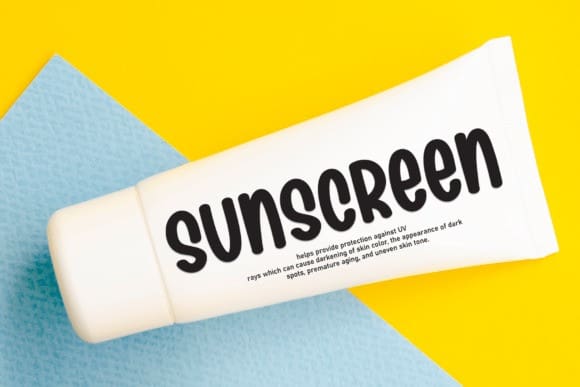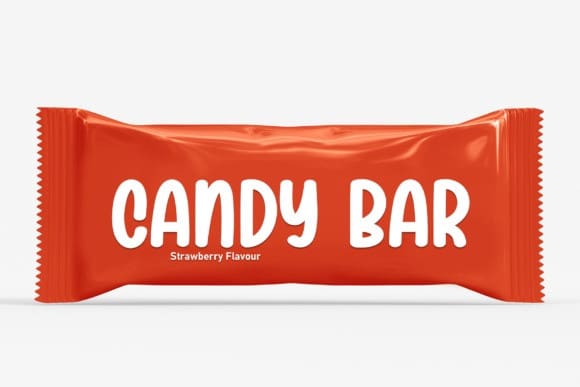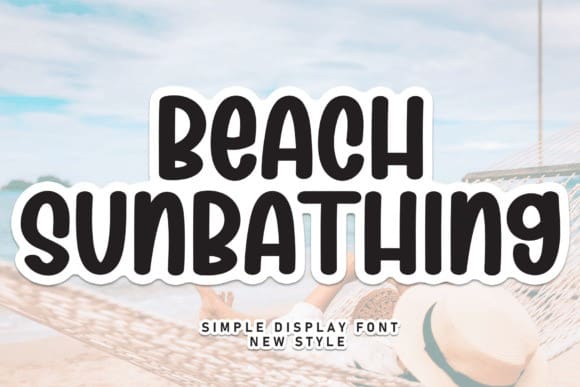
Beach Sunbathing Font
Beach Sunbathing Font is a sweet and friendly handwritten font. Its natural and unique style makes it incredibly fitting to a large pool of designs. The only limit is your imagination!